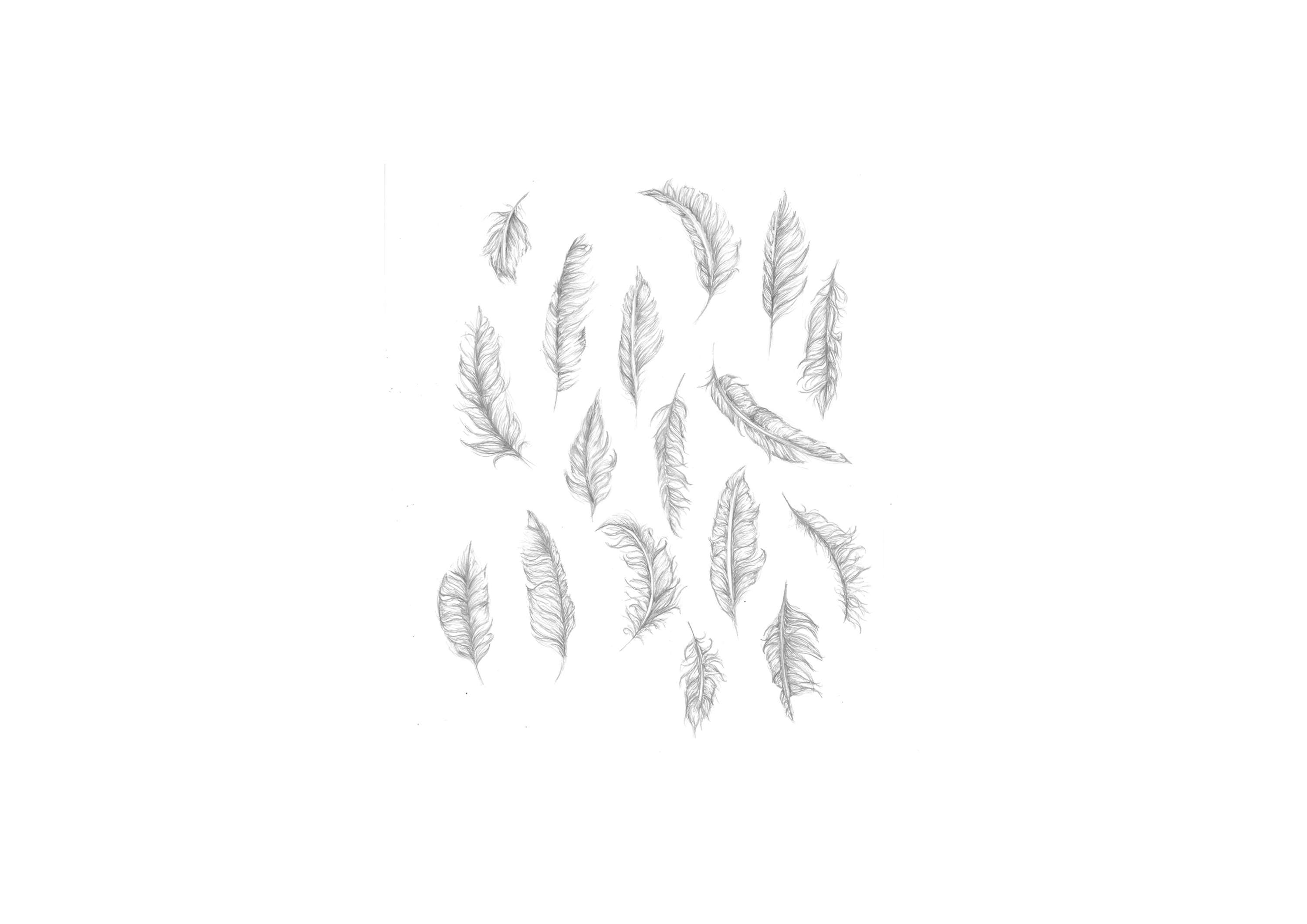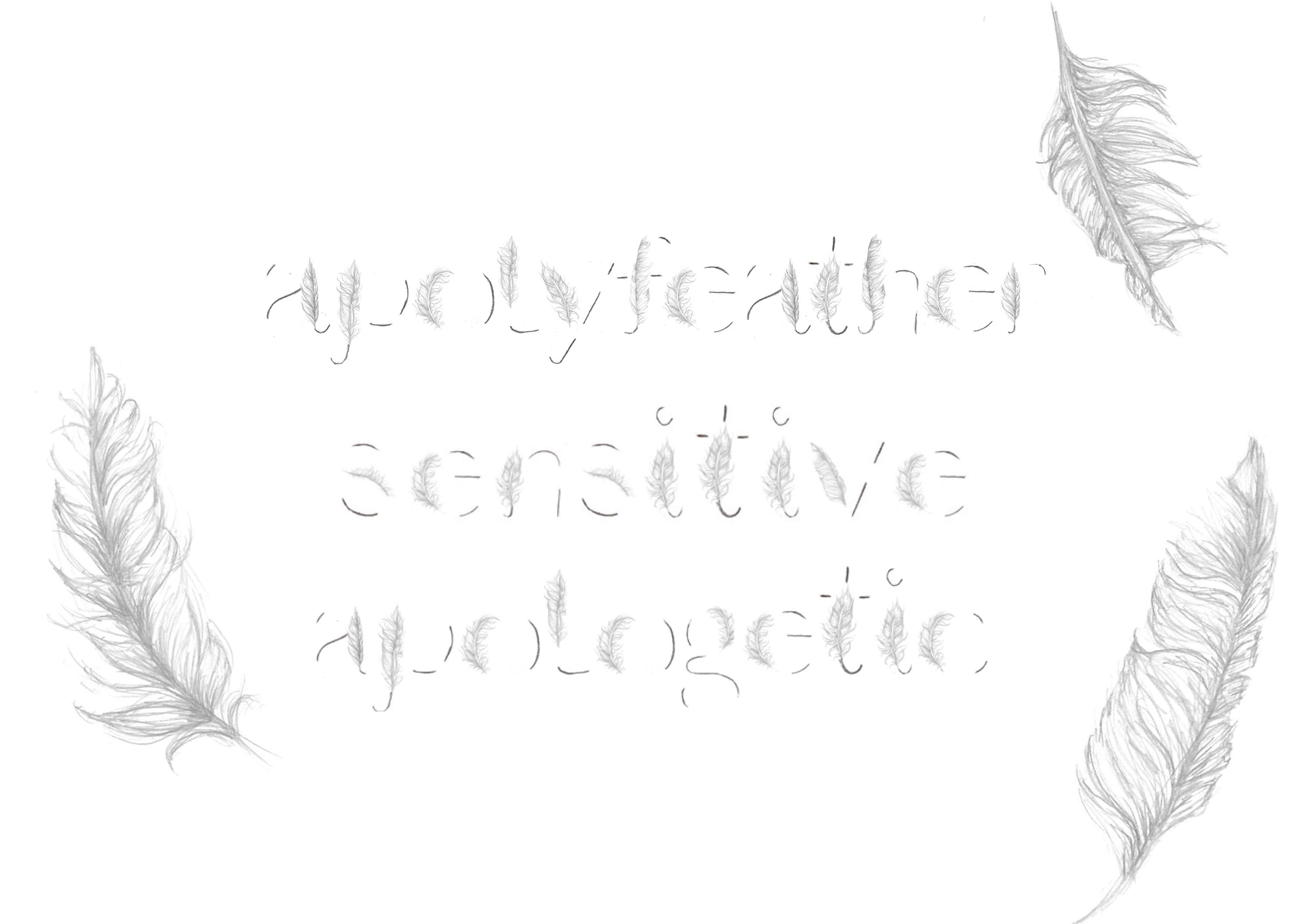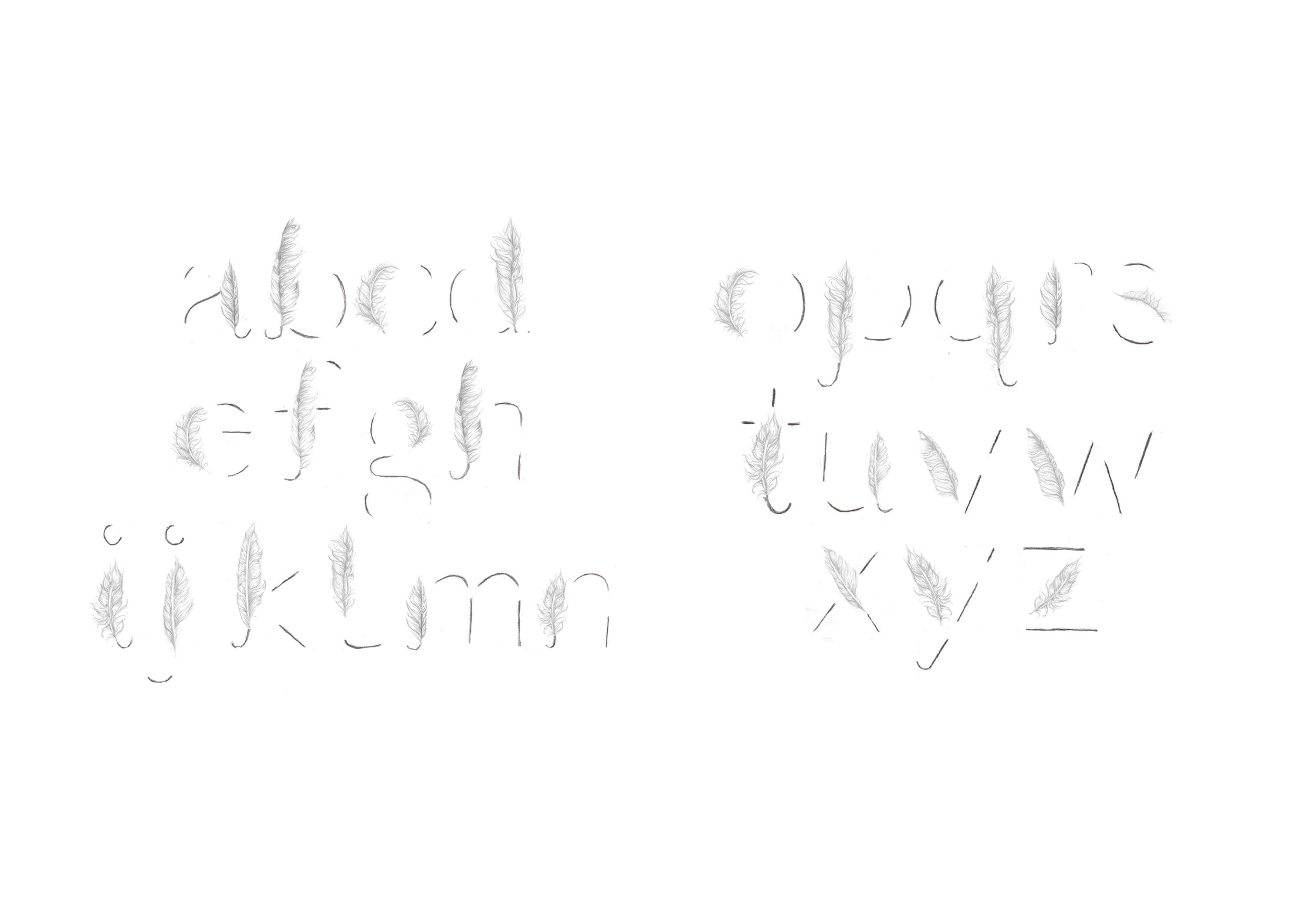
Apolyfeather Typeface
‘Apolyfeather’ typeface is based on the word apologetic and looks at submissive values.
Apolyfeather Typeface by Georgina Webb
BREIF
Identify a personality trait amongst a questionnaire to determine a trait of an individual and create a visual typeface to represent this personality trait.
INSIGHT
Individual had a apologetic nature to their answers in the questionnaire which also suggests they have a submissive essence about them.
SOLUTION
The typeface has interpreted the submissive nature of the individual and represented it with a feather, as well as the broken letter forms.
The letters and feathers are hand drawn with pencil as to give a human feel as well as softness to the characters.